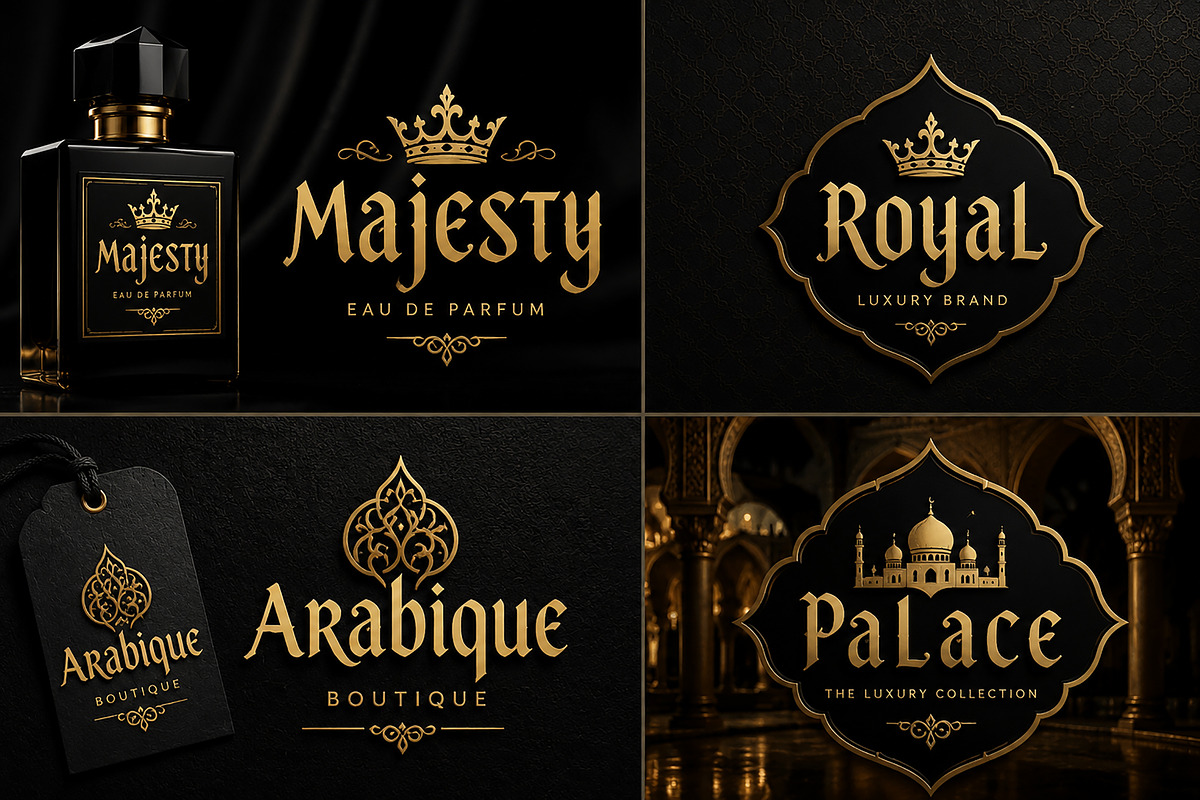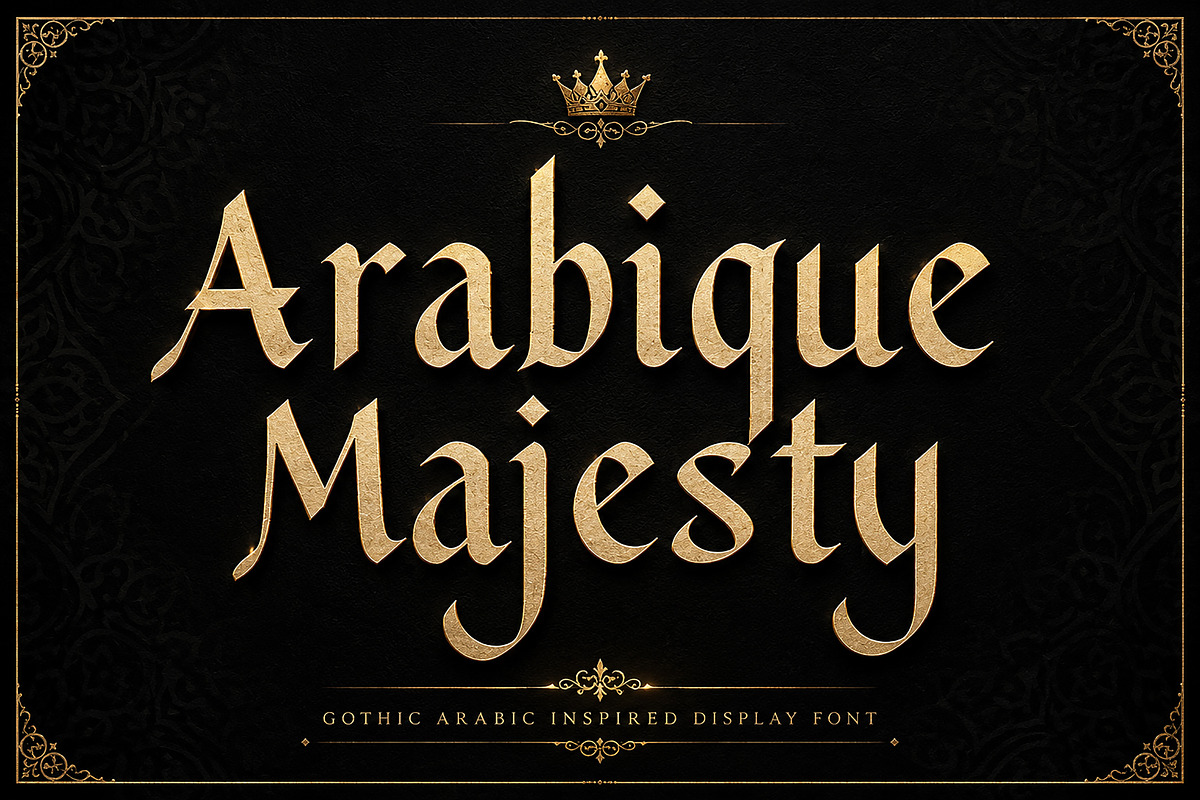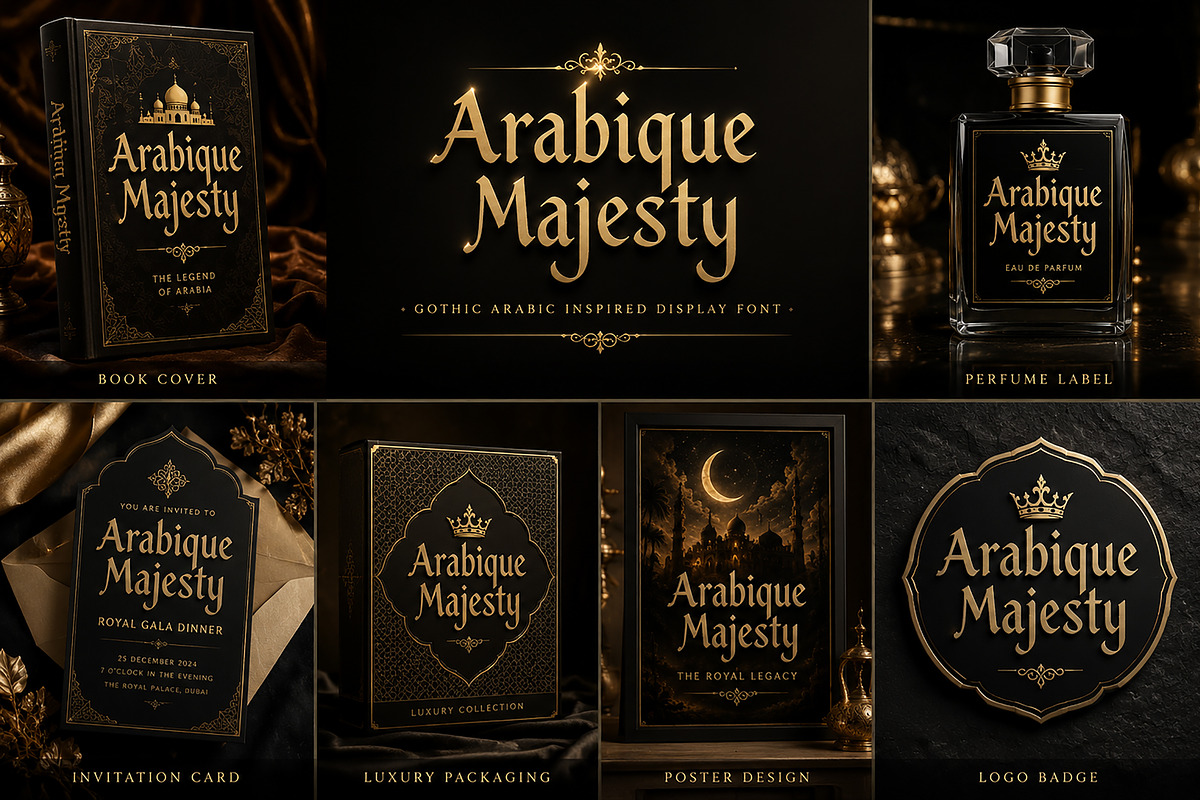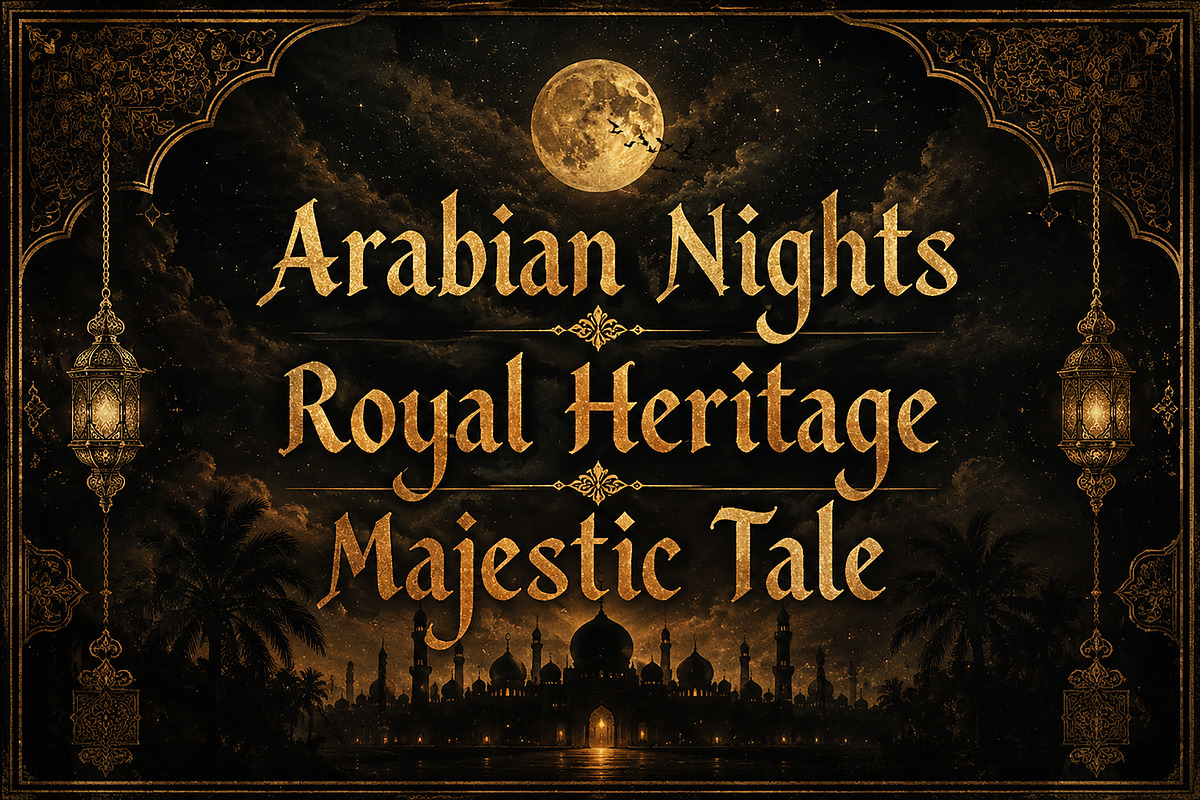
Arabique Majesty
Arabique Majesty – Gothic Arabic Inspired Display Font
Arabique Majesty is a bold and elegant display font inspired by the beauty of Gothic letterforms and the timeless charm of Arabic architecture. Featuring sharp details, dramatic curves, and majestic character shapes, this font is designed to bring luxury, mystery, and sophistication to your creative projects.
Perfect for premium branding, book covers, movie posters, luxury packaging, perfume labels, editorial designs, invitations, logos, and high-end marketing materials. Arabique Majesty combines vintage elegance with a royal aesthetic, making it an excellent choice for designers who want to create unforgettable visual experiences.
• Unique Gothic Arabic-Inspired Design
• Luxury Branding
• Perfume Labels
• Book Covers
• Editorial & Magazine Designs
• Event Invitations
• Restaurant Branding
• Fashion Logos
• Royal & Historical Themes
• Movie Posters
• Premium Packaging
Add a touch of elegance, heritage, and grandeur to your next project with Arabique Majesty.